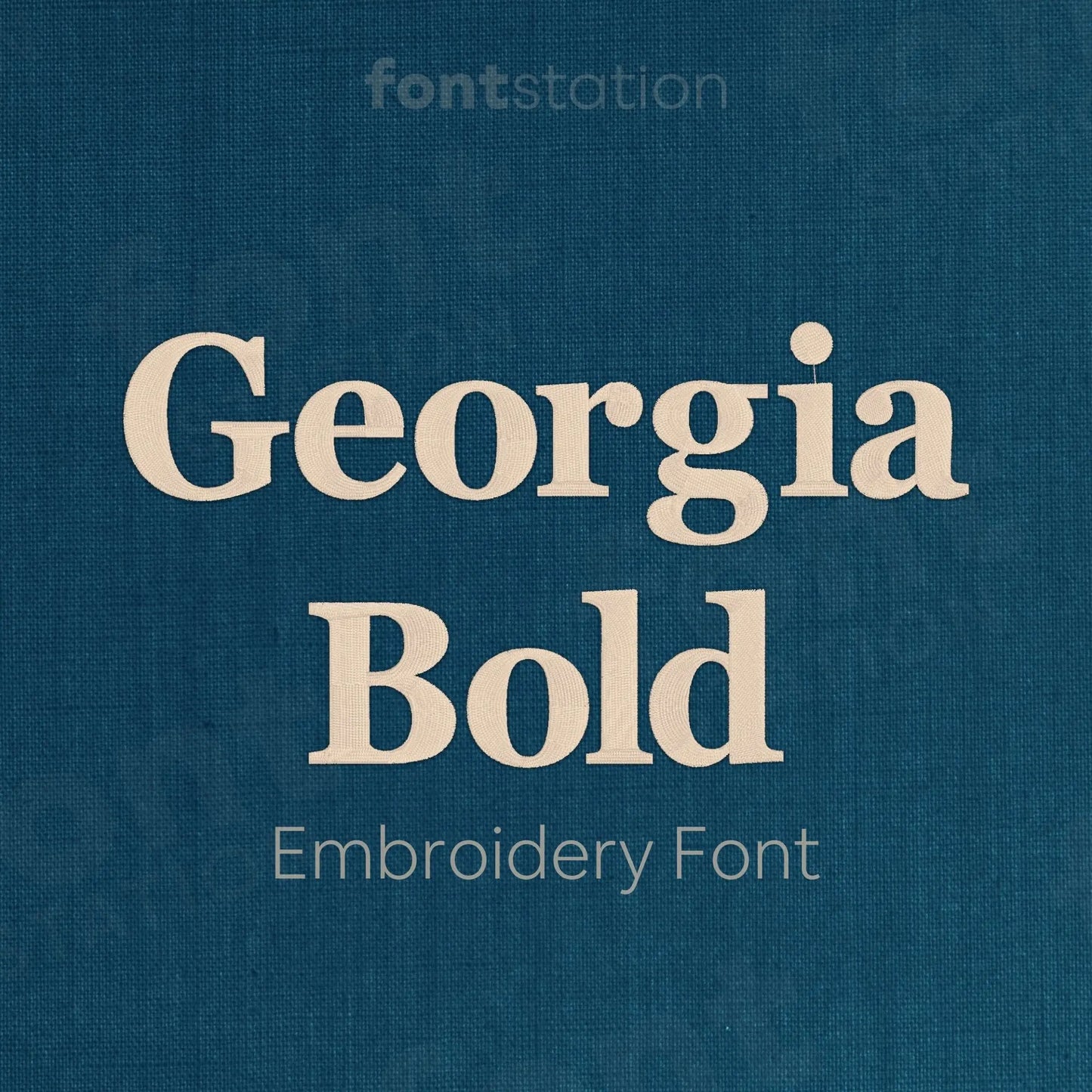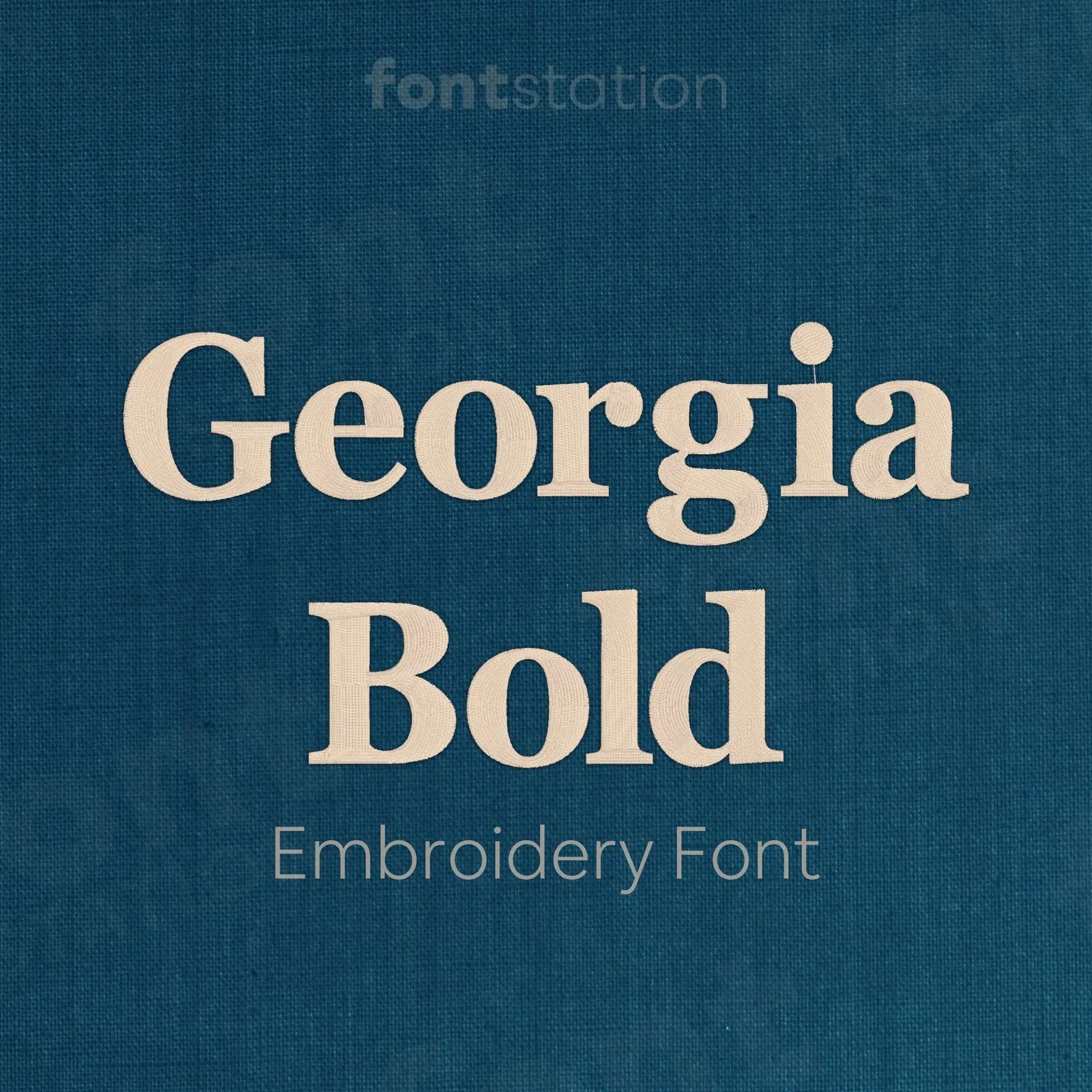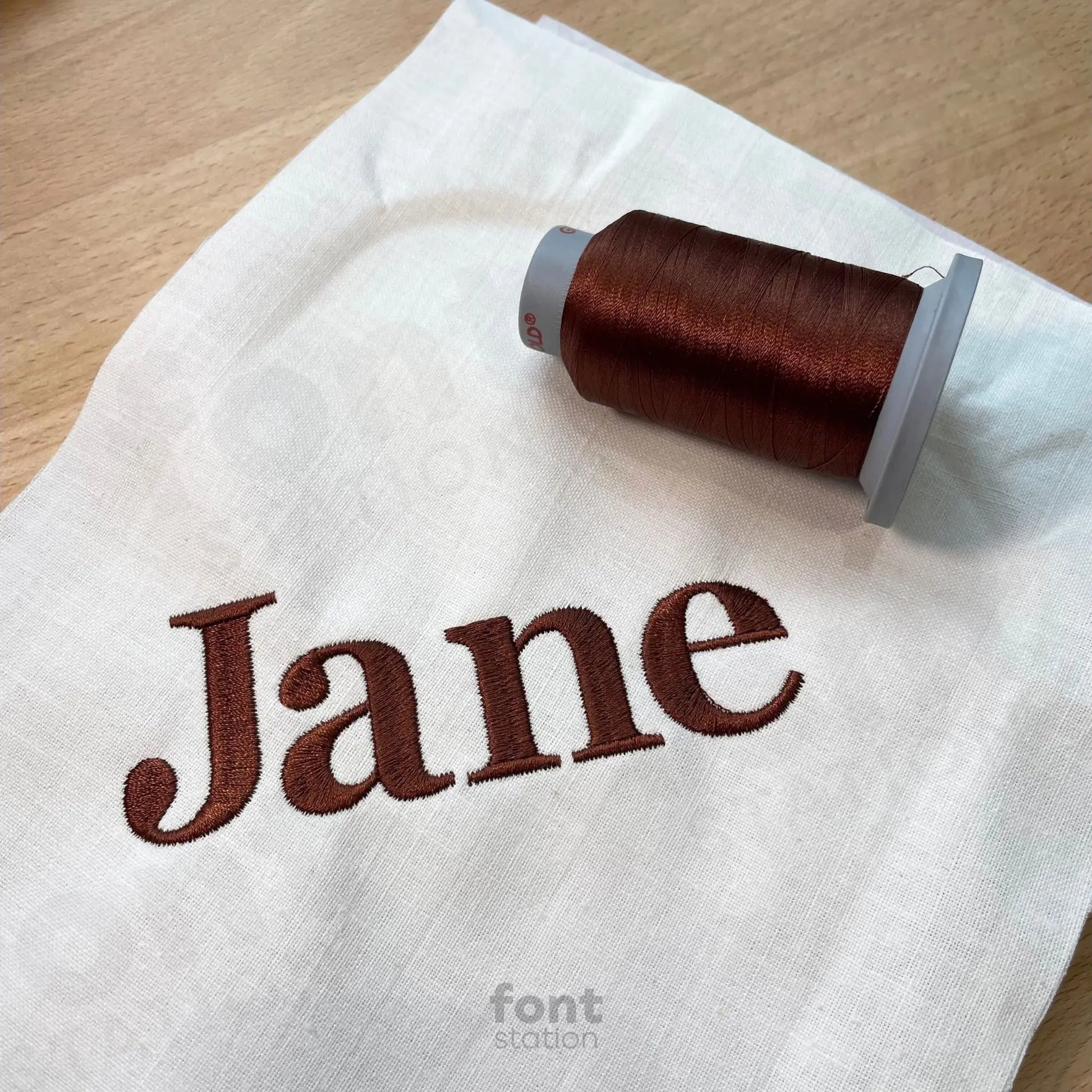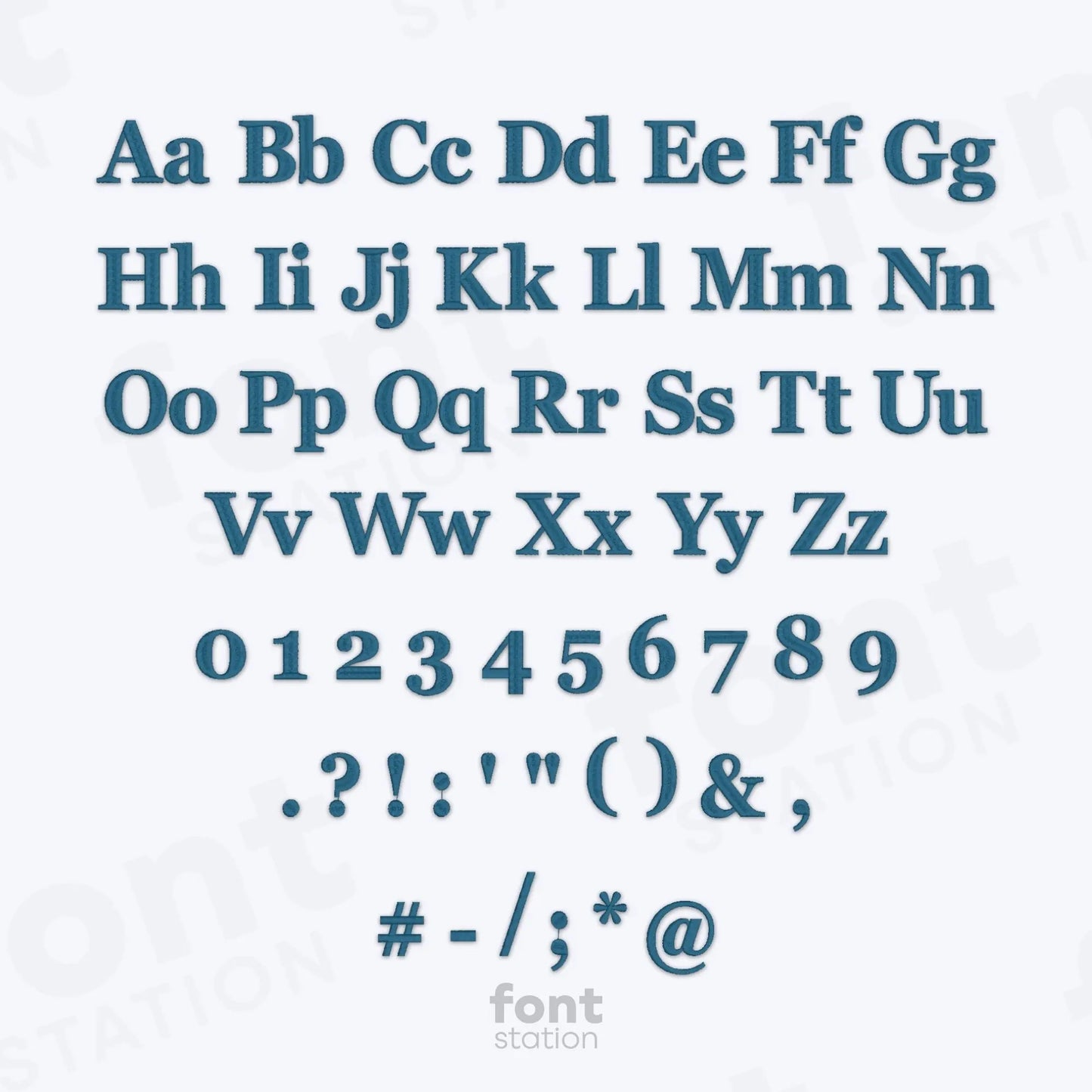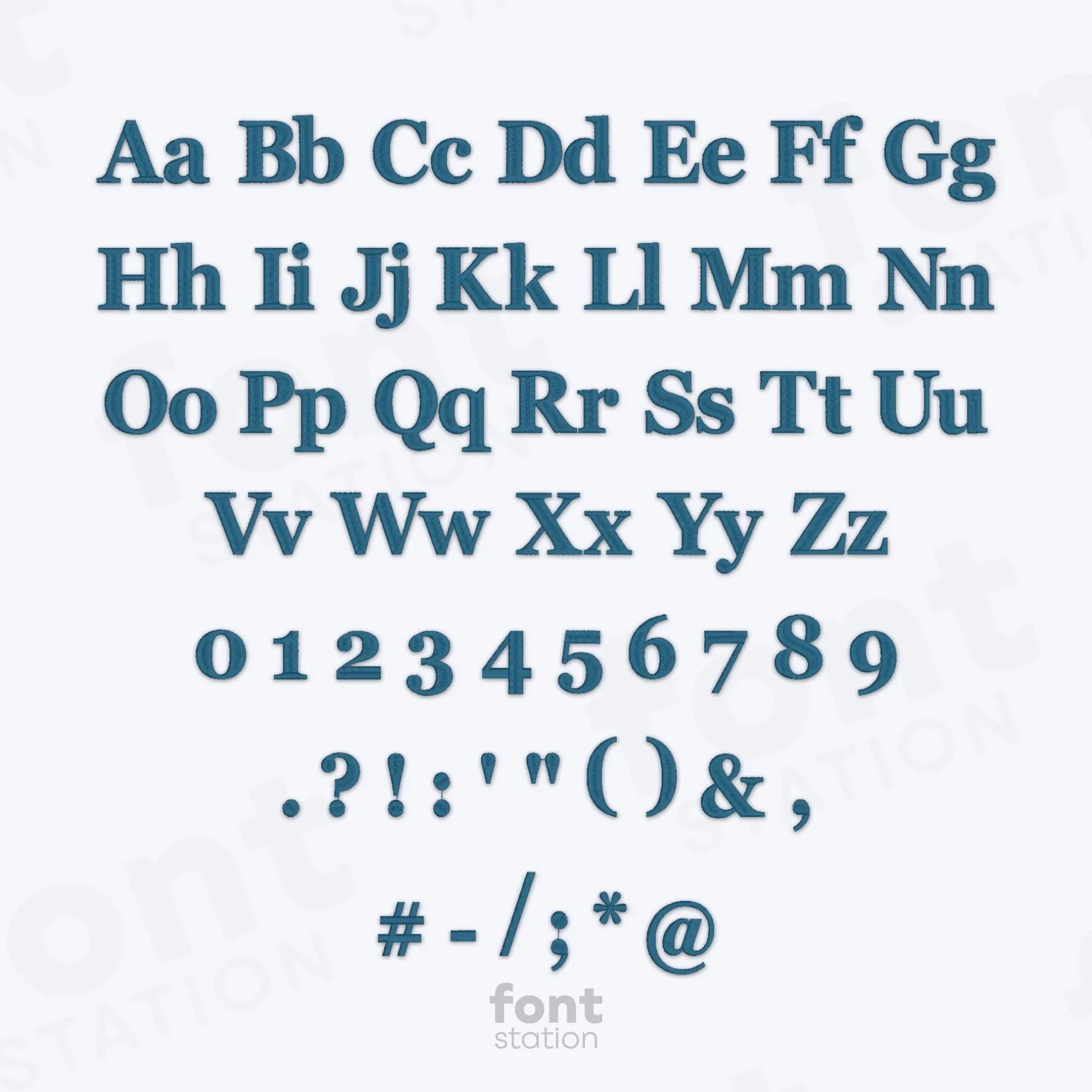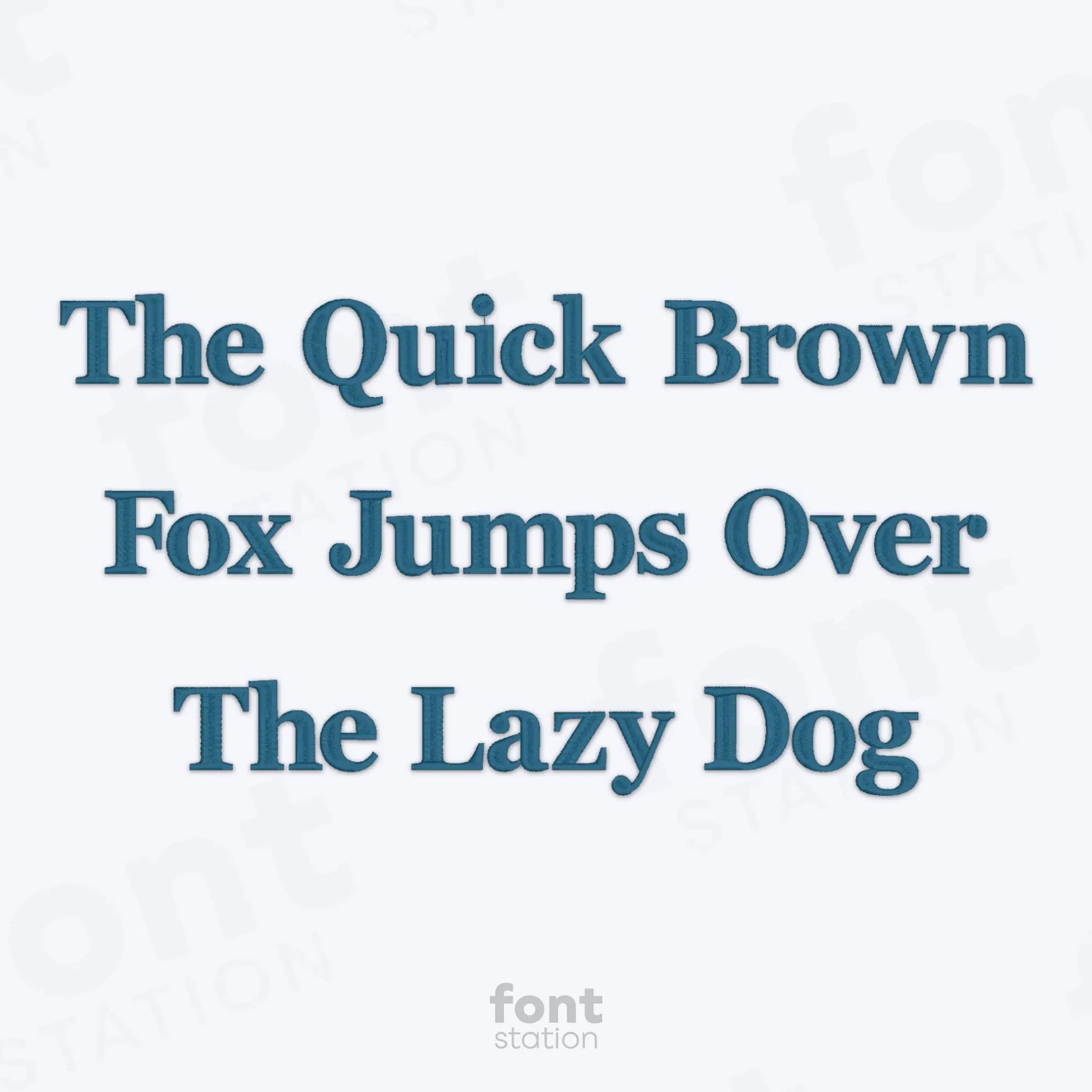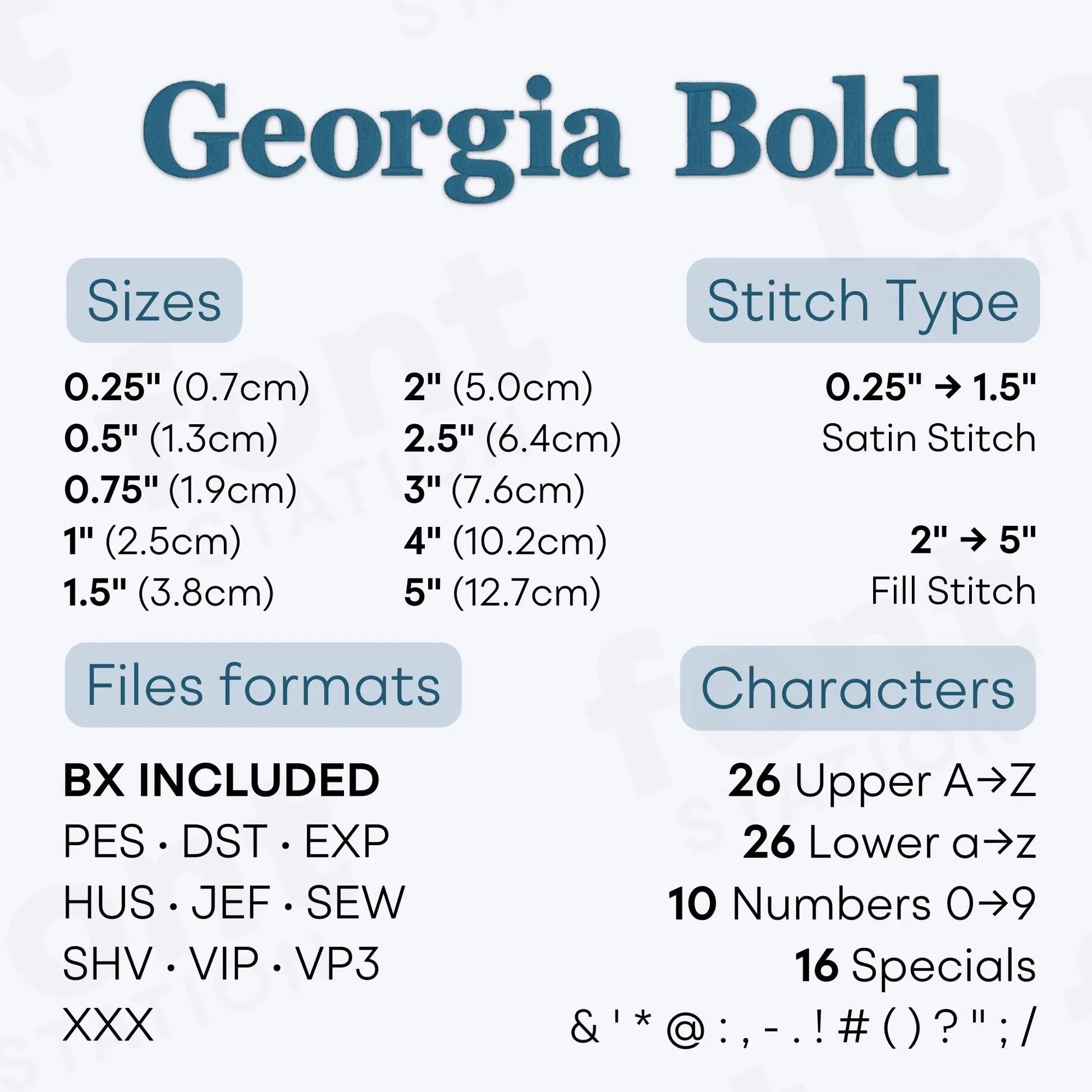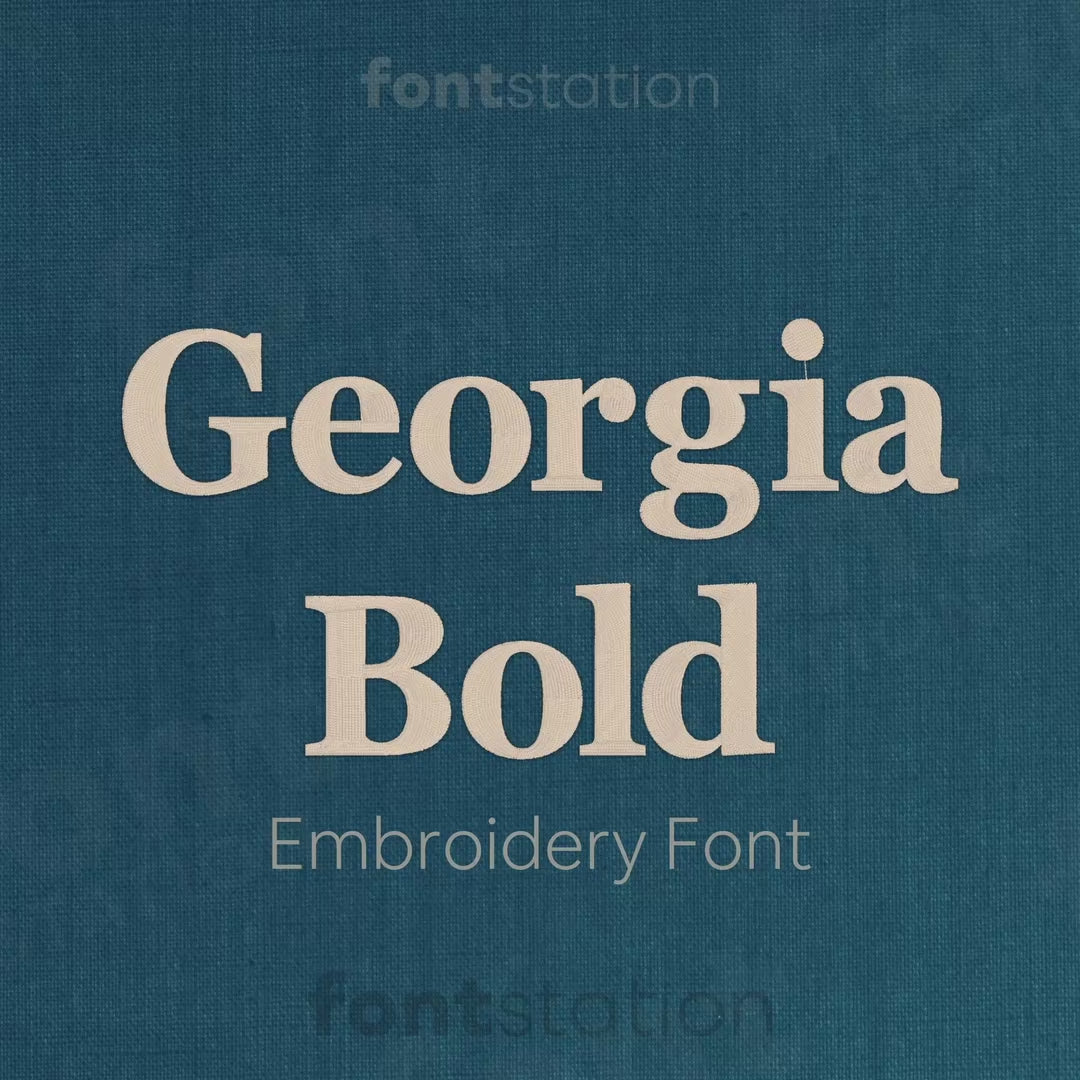
Georgia Bold Embroidery Font
Our Georgia Bold embroidery font features a classic serif alphabet designed to stitch clean, bold letters for any project. Perfect for timeless designs, it works beautifully with your embroidery machine to add elegance to every stitch.
About the Georgia Bold Embroidery Font
Characters: 26 uppercase, 26 lowercase, 10 numbers, and symbols & ' * @ : , - . ! # ( ) ? " ; /
The Georgia Bold embroidery font adds a timeless, classic feel to your embroidery designs.
With its elegant serif alphabet and strong letterforms, the Georgia Bold embroidery font is perfect for creating refined monograms, vintage-inspired projects, and high-end personalized gifts. This classic embroidery font features well-balanced, bold letters that stitch beautifully on any embroidery machine. Ideal for both modern and traditional designs, it includes popular formats like BX, PES, DST, JEF, EXP, VP3, HUS and more, ensuring smooth results on every project.